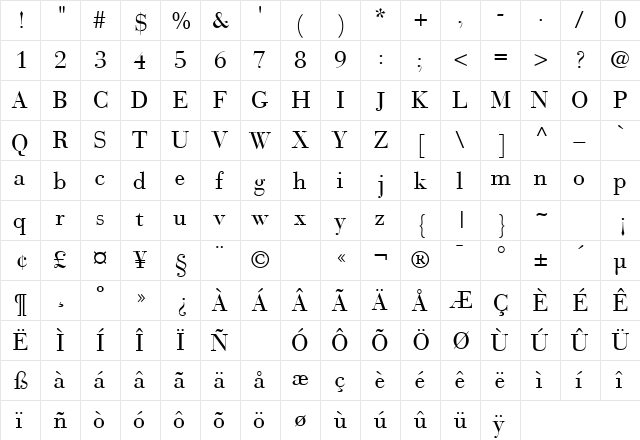
BodoniRecutCondSSK Regular Font Preview
BodoniRecutCondSSK Regular
Design Context for BodoniRecutCondSSK Typeface
BodoniRecutCondSSK offers clean, dependable letterforms without strong stylistic allegiance, making it a practical choice for designers who need flexibility. The condensed width makes it efficient for tight spaces without sacrificing legibility.